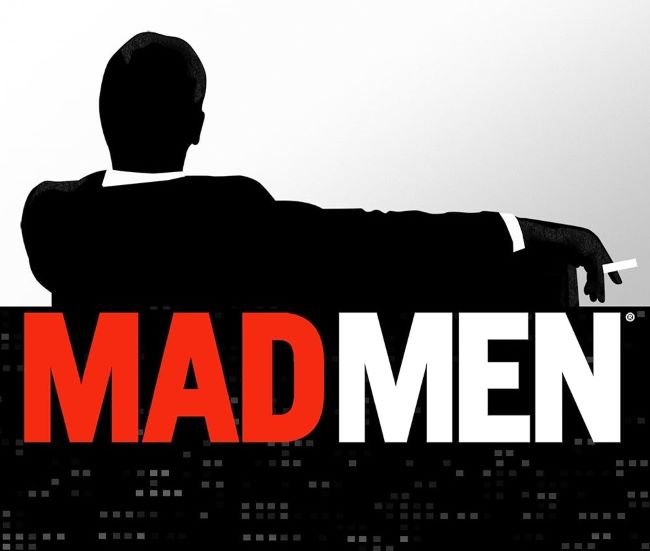
Mad Men Font is a sleek mid-century sans-serif font — closely resembling Helvetica Neue Heavy in the original logo, a commercial typeface — used across Matthew Weiner’s AMC drama (2007–2015) set in the 1960s advertising world of Madison Avenue, following Don Draper’s brilliant, fractured career as a creative director whose professional genius is inseparable from his personal mythology of self-invention.
The font’s clean, confident geometry captures the era’s belief in modernism and rational design as the visual language of ambition and progress — the aesthetic of a world that had not yet discovered its own contradictions. Two free alternatives are available.